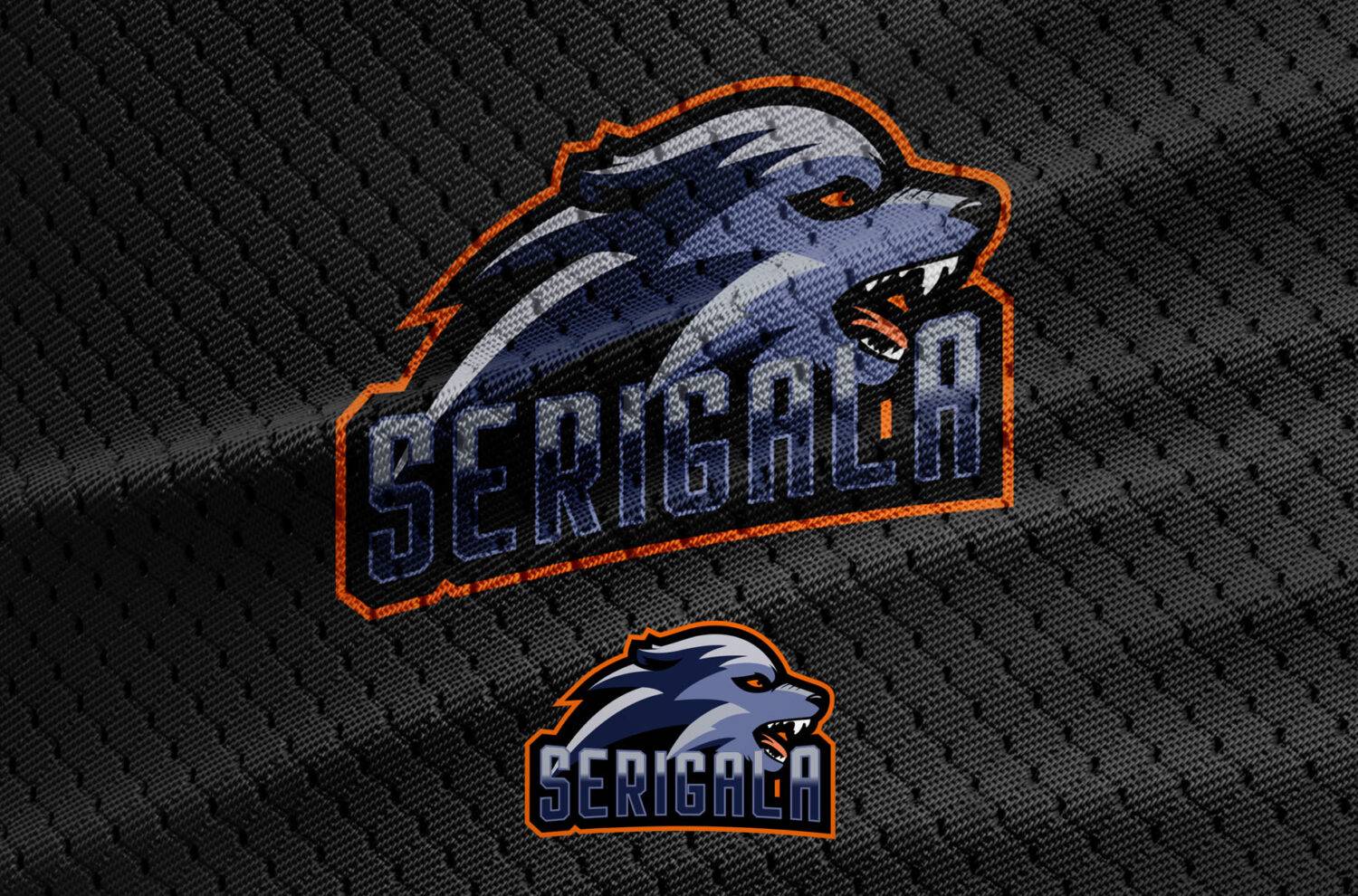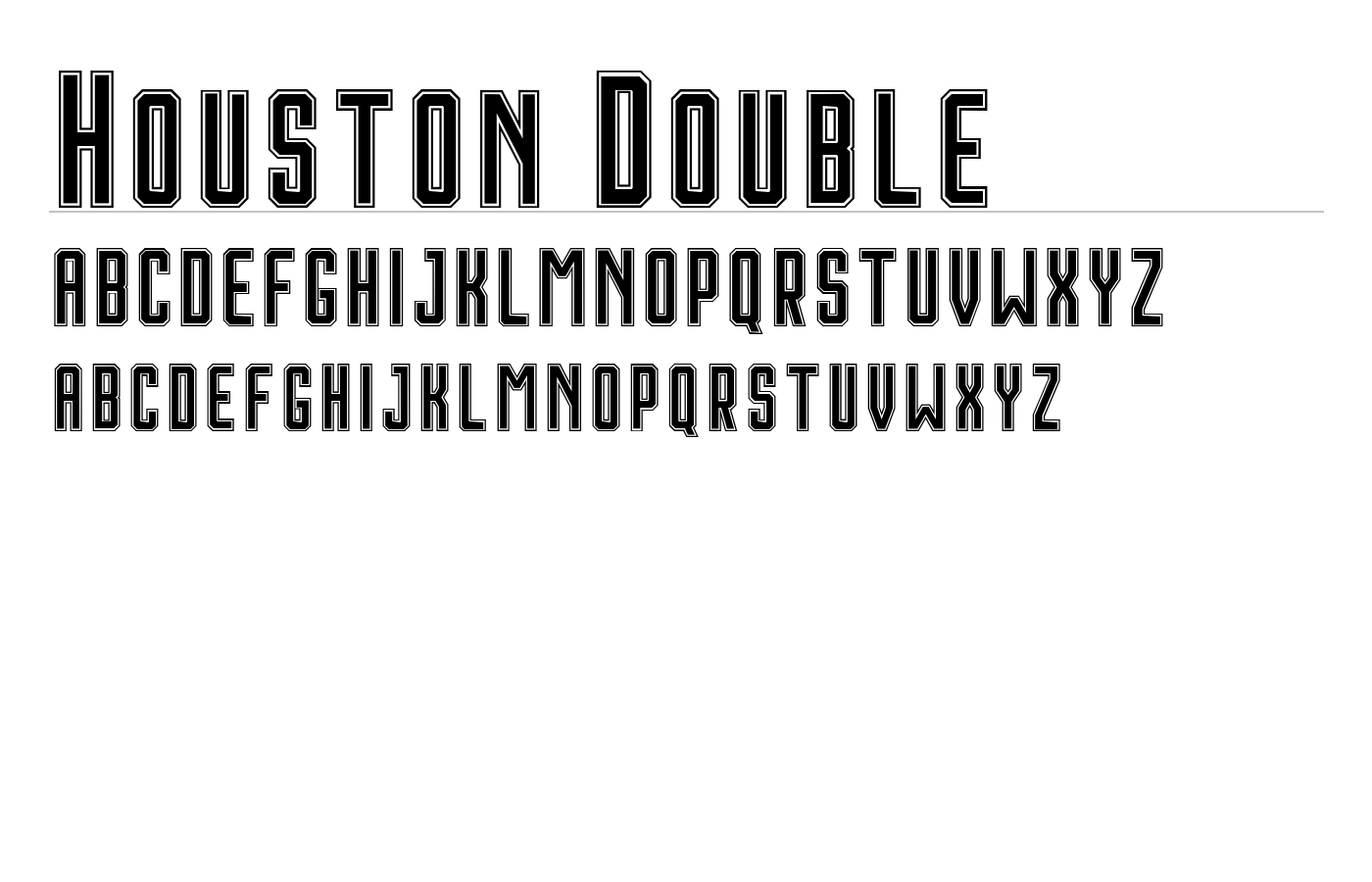
The Houston Font Family features a bold, condensed sans serif style with a distinctive double-line effect that adds depth and a vintage sports-inspired feel. Its all-caps design and strong, geometric letterforms make it ideal for headlines, logos, and branding that require a striking, athletic, or industrial aesthetic. This font stands out in contexts where impact and clarity are essential, giving designs an energetic and confident personality.
Houston Font Family
About Houston Font Family